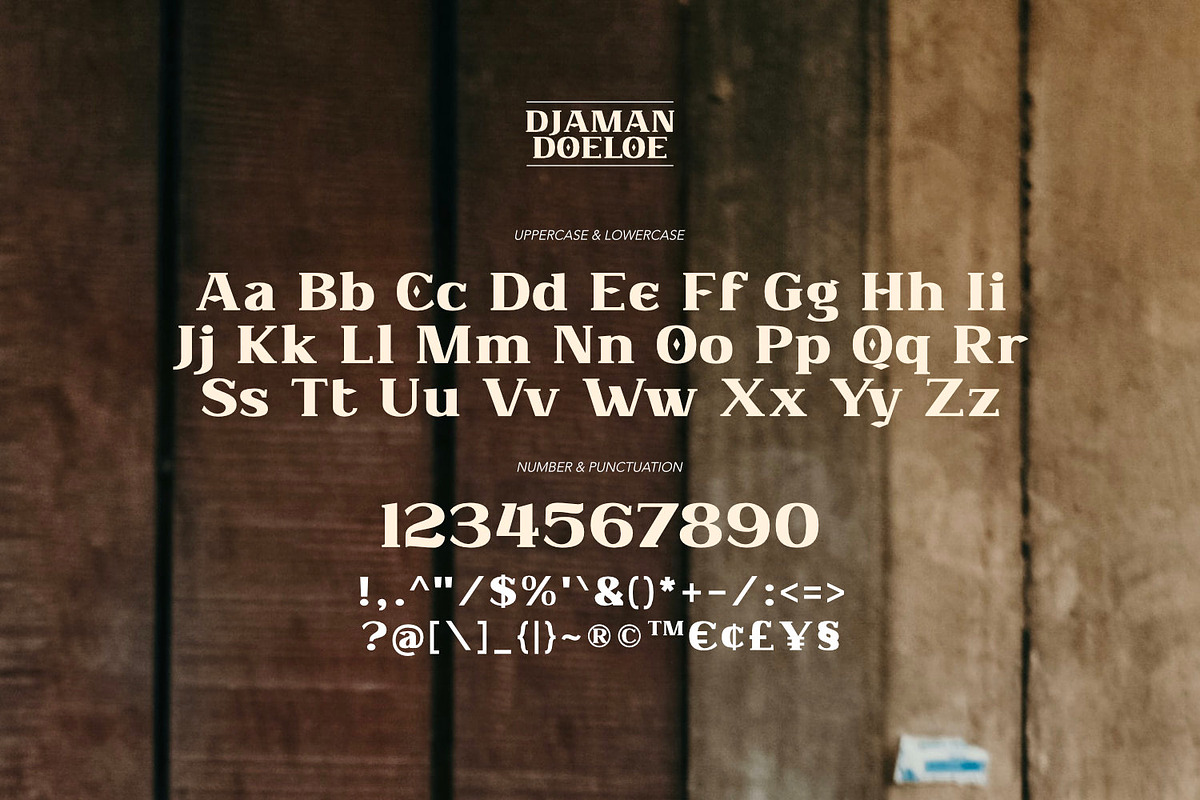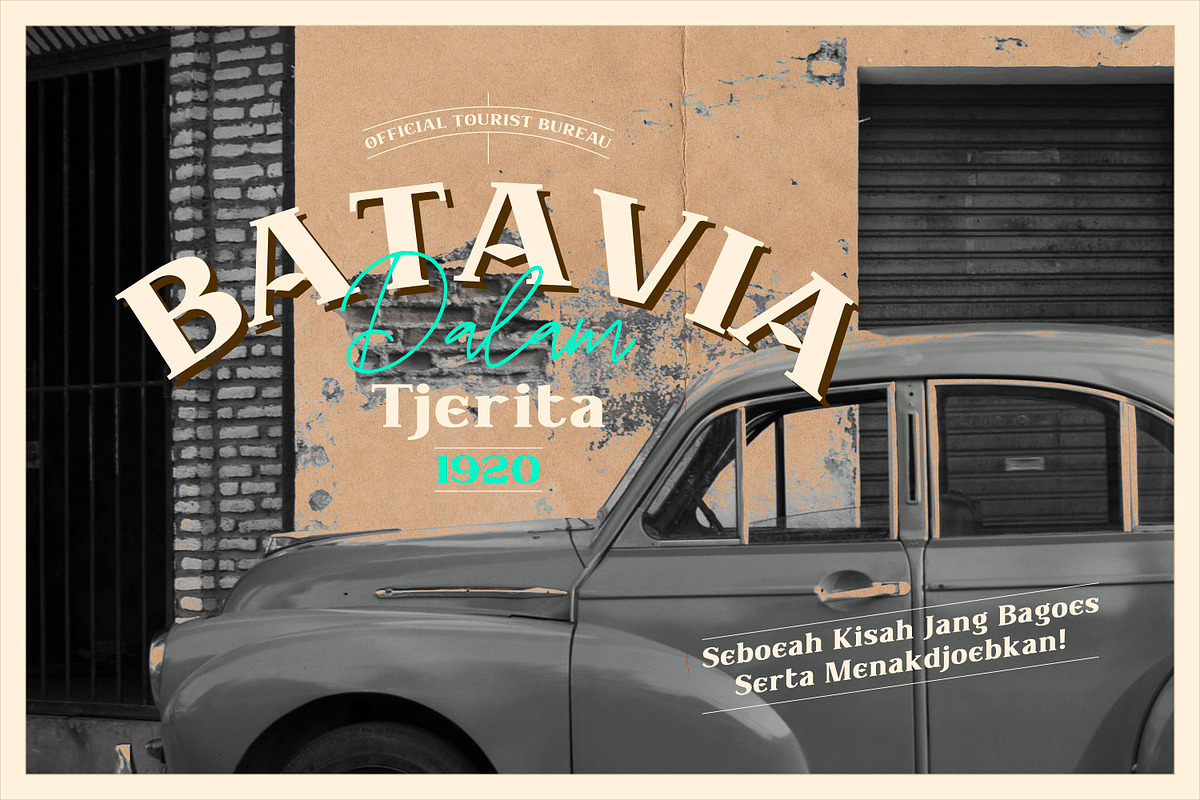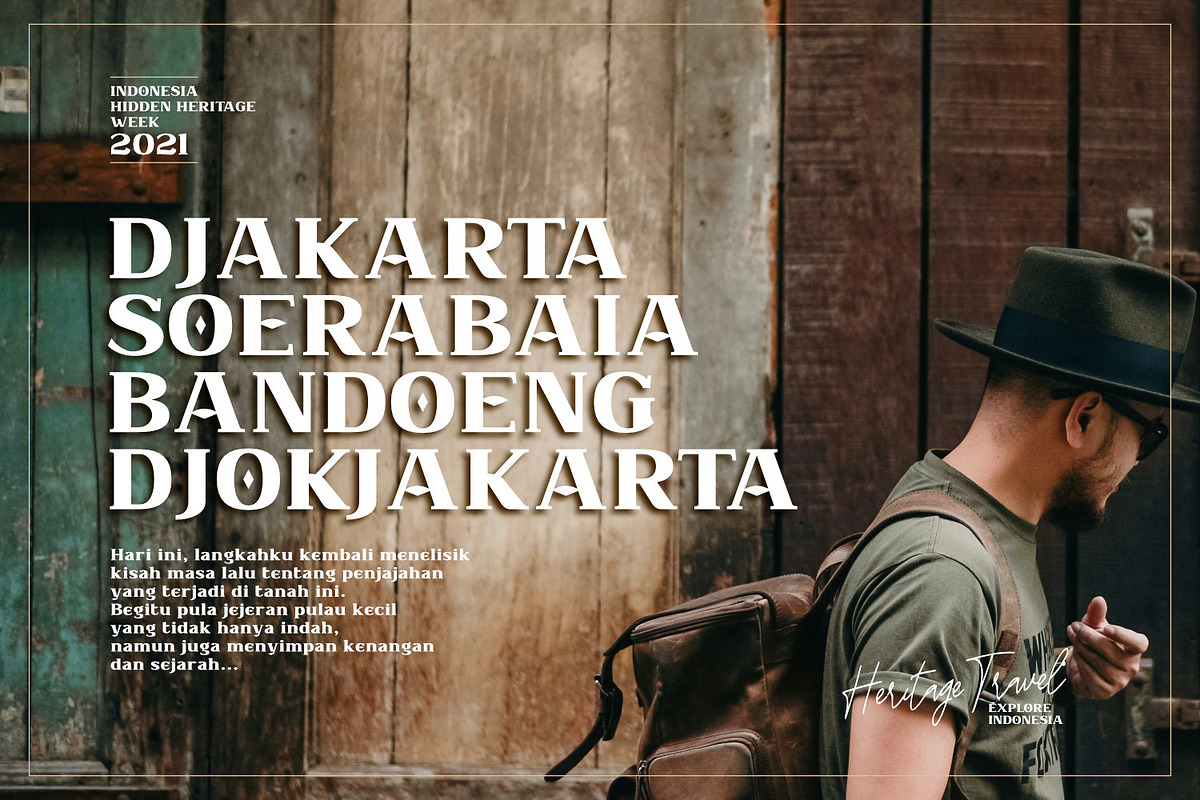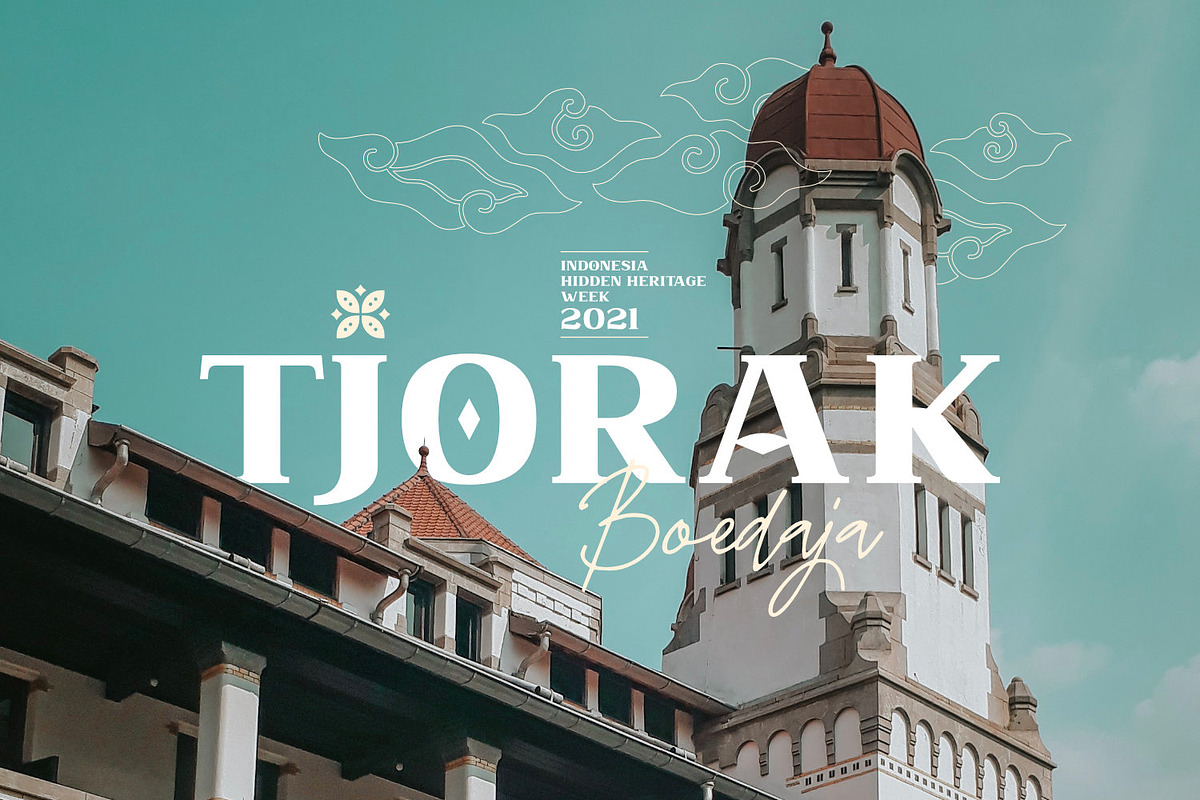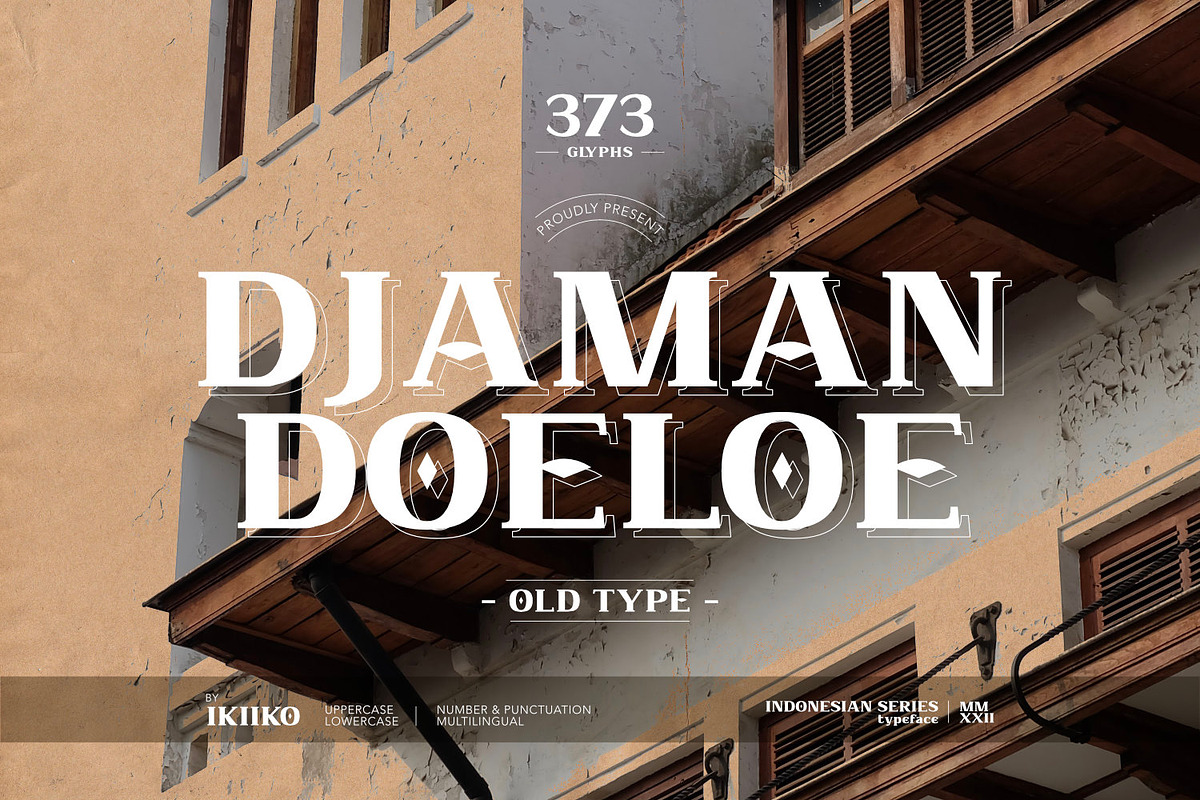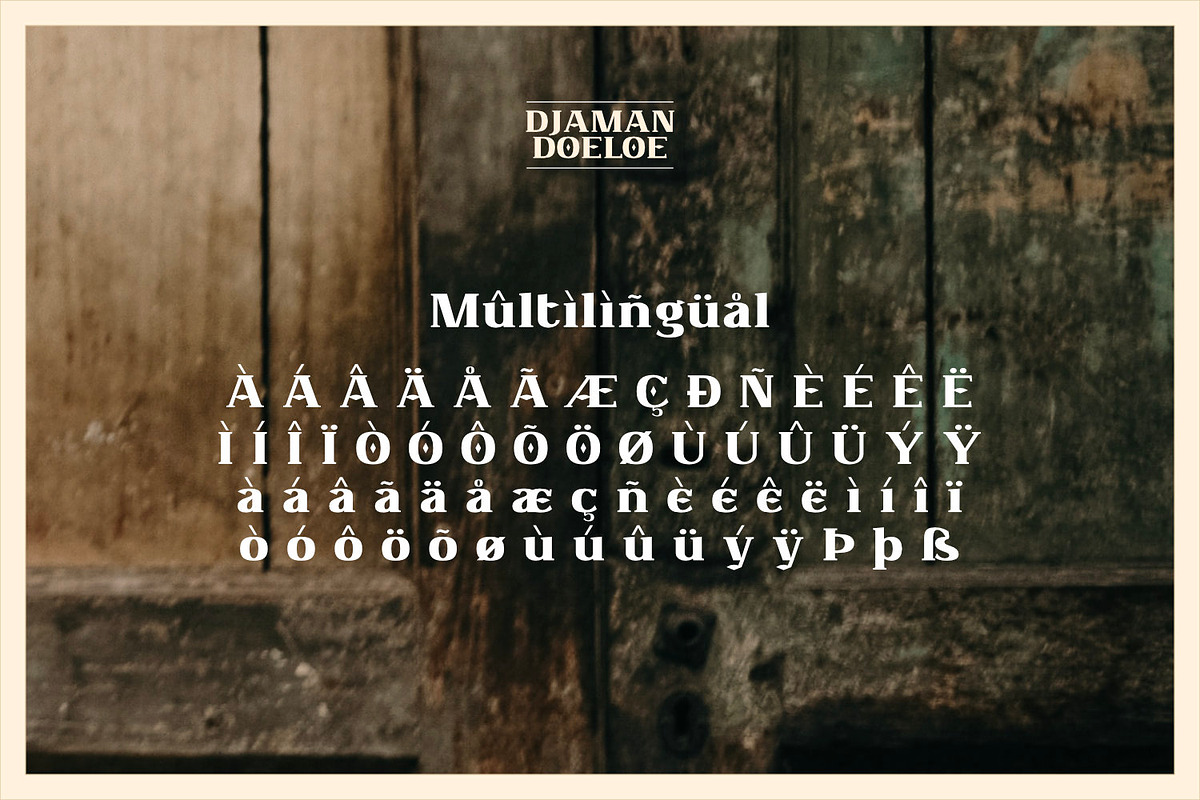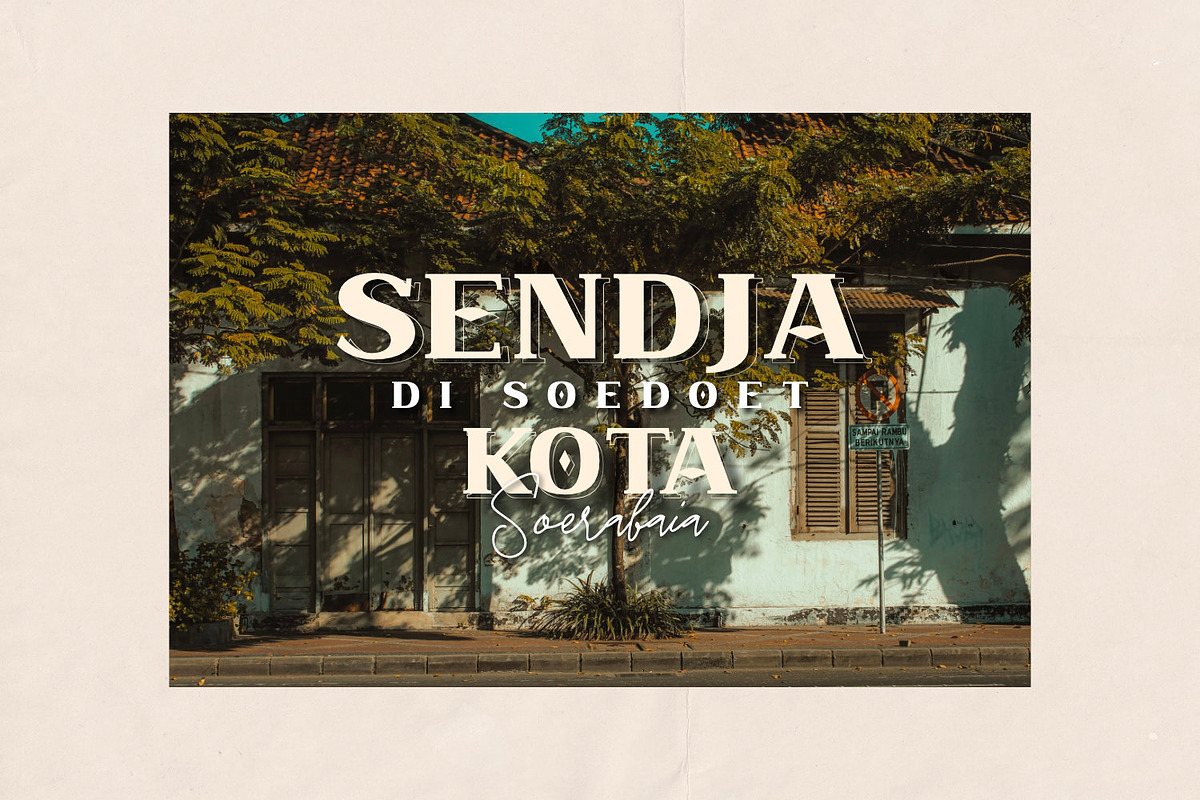
Djaman Doeloe - Old Type
Introducing Djaman Doeloe - Old Type, created by ikiiko.
Djaman Doeloe is a classic serif typeface with unique decorative element. Is an extension of the word taken from the indonesian language term "jadoel" which means antiquity. This typeface is perfect for an elegant logo, classy branding, vintage stuff, wedding, invitation, magazine layout, quotes, or simply as a stylish text overlay to any background image.